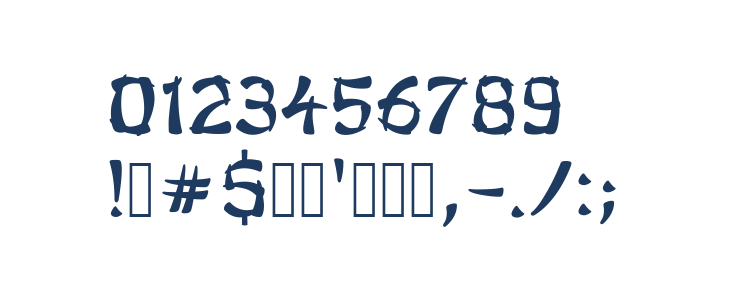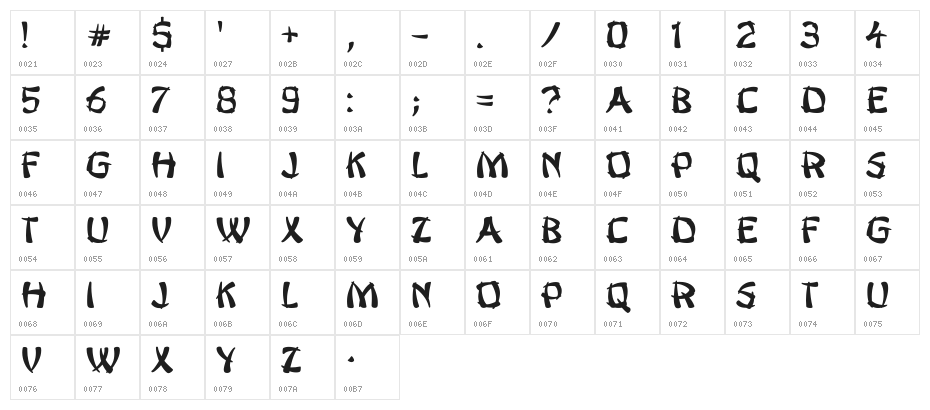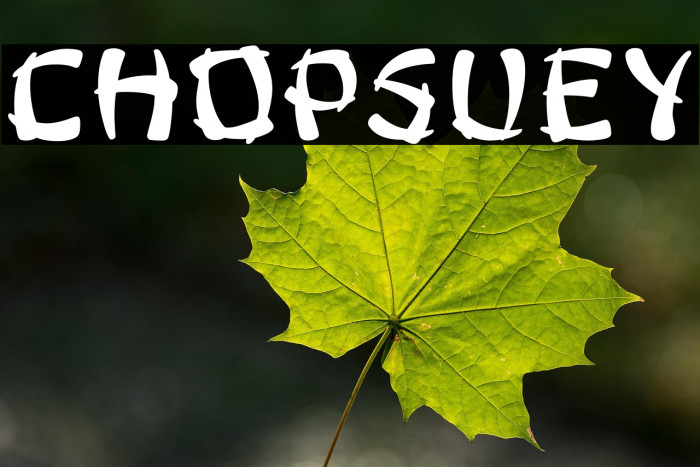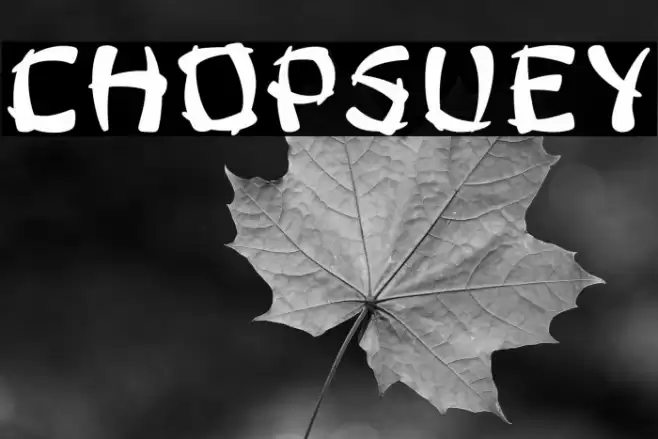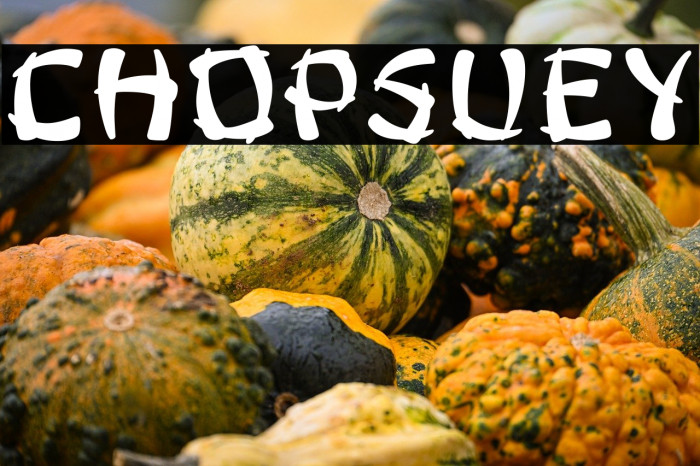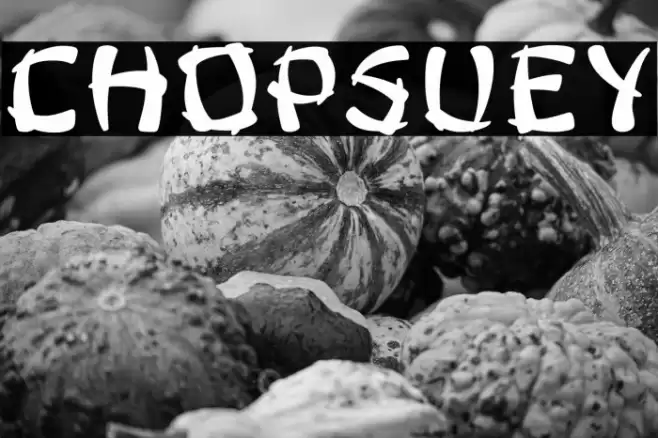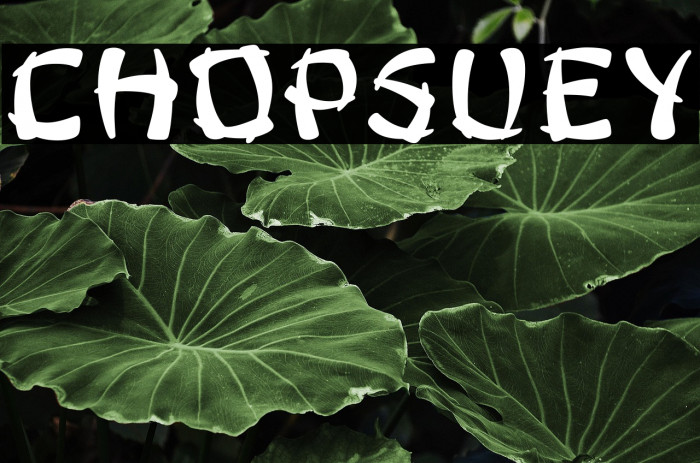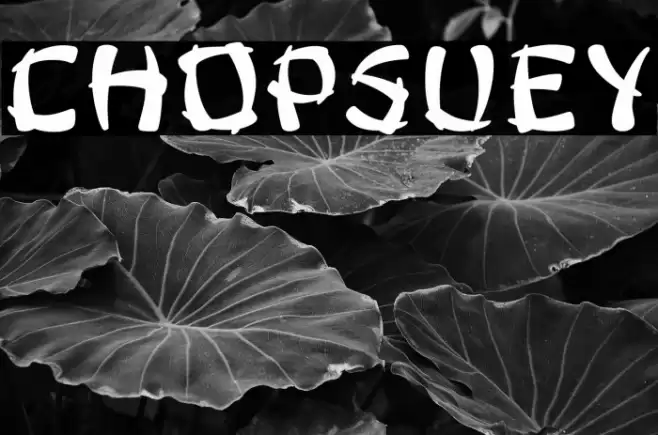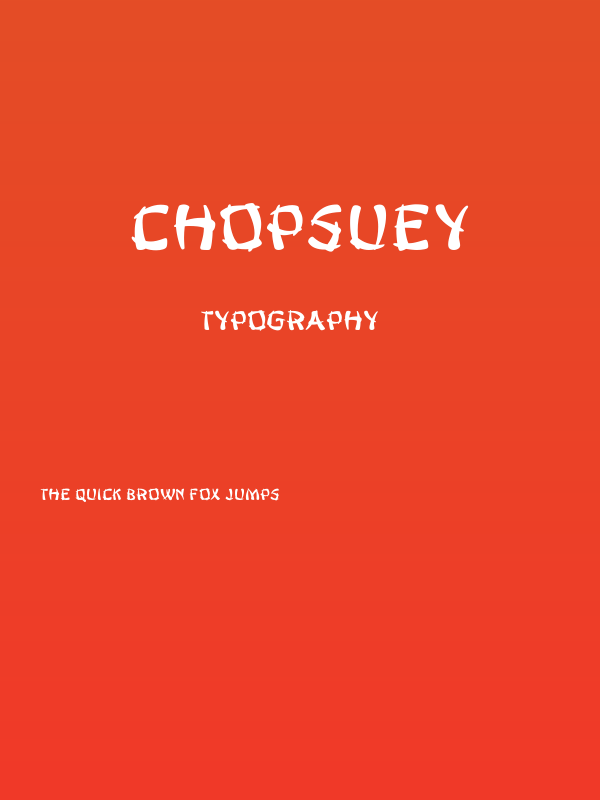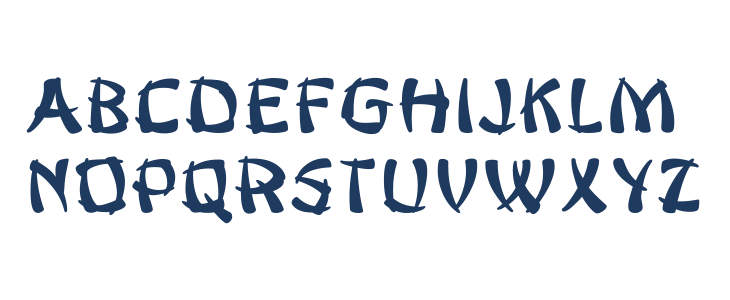
ChopsUey Font
ChopsUey Description
This font features a bold and expressive style with a brush-like appearance, giving it a dynamic and energetic feel. The characters are slightly irregular, adding a handcrafted touch that enhances its artistic flair. The strokes are thick and varied, creating a high contrast that draws attention. This font is ideal for making a statement, with its unique and eye-catching design. It combines elements of traditional calligraphy with a modern twist, making it versatile for various creative applications.